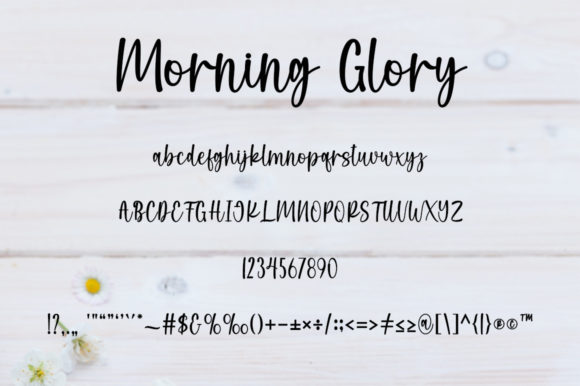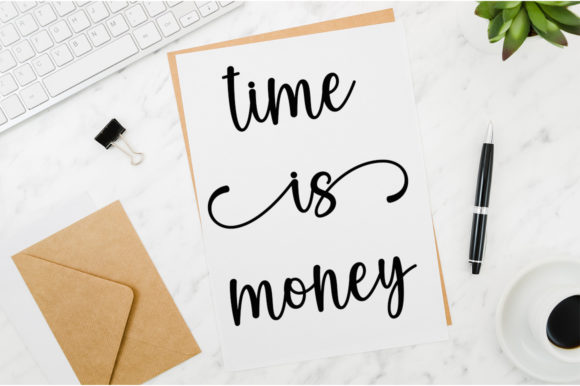
Morning Glory Font
db-ku.com - Script & Handwritten -- Morning Glory is a flowing handwritten font, described by an elegant touch, perfect for your favorite projects. This font is PUA encoded which means you can access all of the glyphs and swashes with ease.